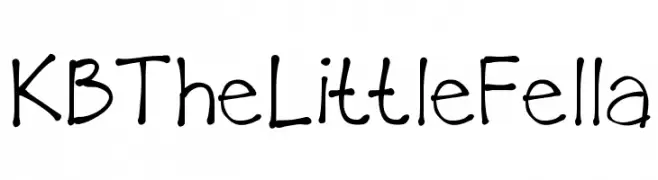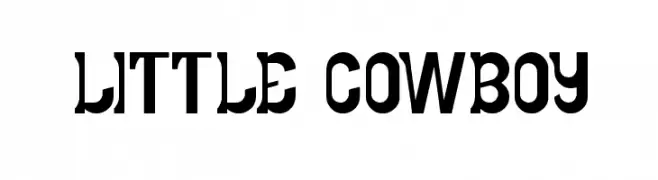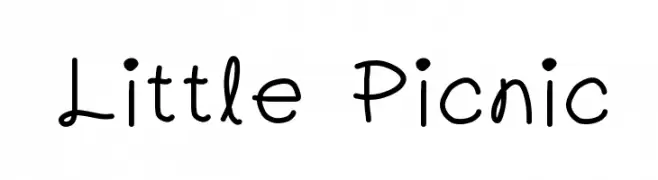
A pixelated, monospaced font with a retro digital style.
A bold, playful font with a Western-inspired design and unique serifs.
A bold, playful font with rounded, bubble-like characters and unique cut-out details.
A bold, playful font with rounded, geometric shapes.
A modern, dotted font with a playful and creative design.
A playful, handwritten font with thin strokes and a casual style.
A playful, handwritten font with smooth, rounded strokes.
A playful, rounded font with smooth, consistent strokes and a whimsical style.